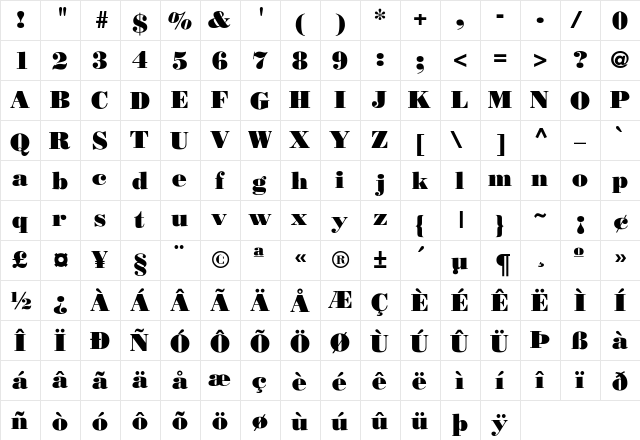
Rothni-Poster Regular Font Preview
Rothni-Poster Regular
Rothni-Poster Regular Font Details
Design Context for Rothni-Poster Typeface
Rothni-Poster offers clean, dependable letterforms without strong stylistic allegiance, making it a practical choice for designers who need flexibility.